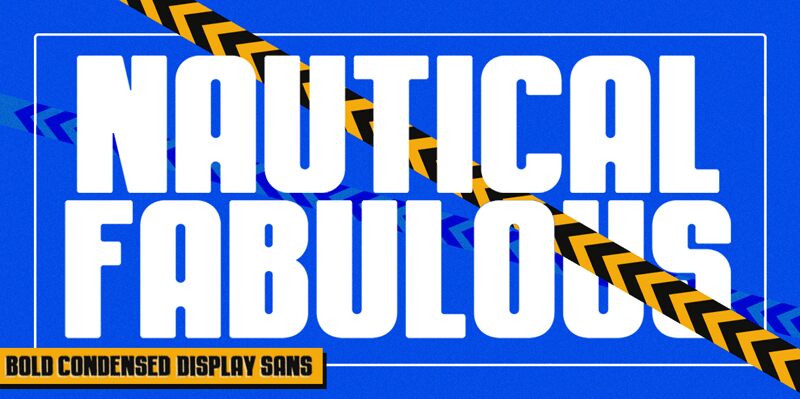
Nautical Fabulous by Letterhend Studio captures attention with its strikingly bold, condensed sans-serif style. This font stands tall and commanding, yet maintains a sleek allure that’s perfect for making a memorable impact.
The balance between its bold weight and tightly packed characters creates an impressive visual harmony that feels modern yet timeless. Ideal for headlines, logos, posters, and any design where strong typographic presence is key, Nautical Fabulous offers both versatility and elegance. Its commanding aesthetic makes it suitable for various design contexts where bold statements are required while retaining readability and sophistication.